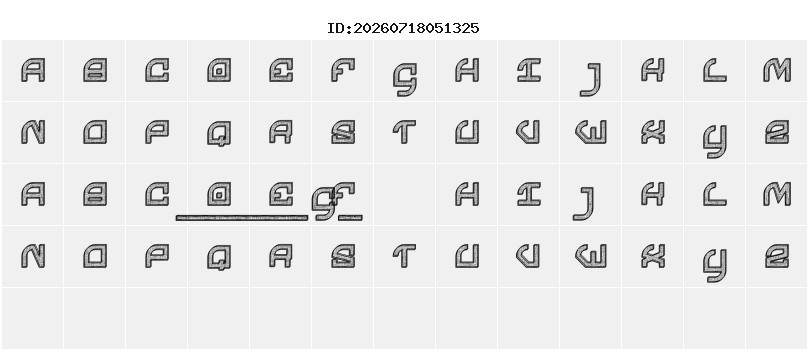
Chomage Preview
• Font Name: Chomage
• Designer: QKila
• Manufacturer: QKila
About Chomage.ttf
Chomage.ttf is a modern, elegant sans-serif font designed for ultimate readability and visual harmony. Perfect for branding, headlines, web design, and print materials.